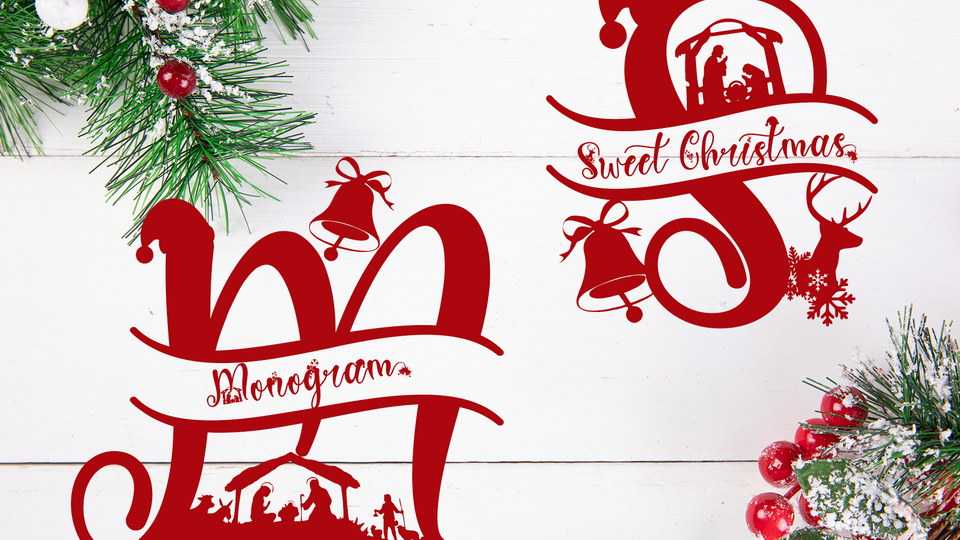
Download Sweet Christmas Monogram font, a festive, warm and romantic handwritten font. Add this fabulous choice to your winter designs and notice how easily they come to life.